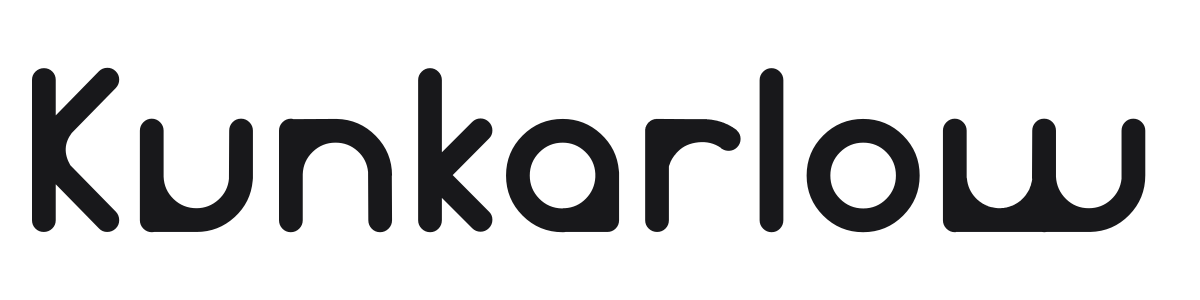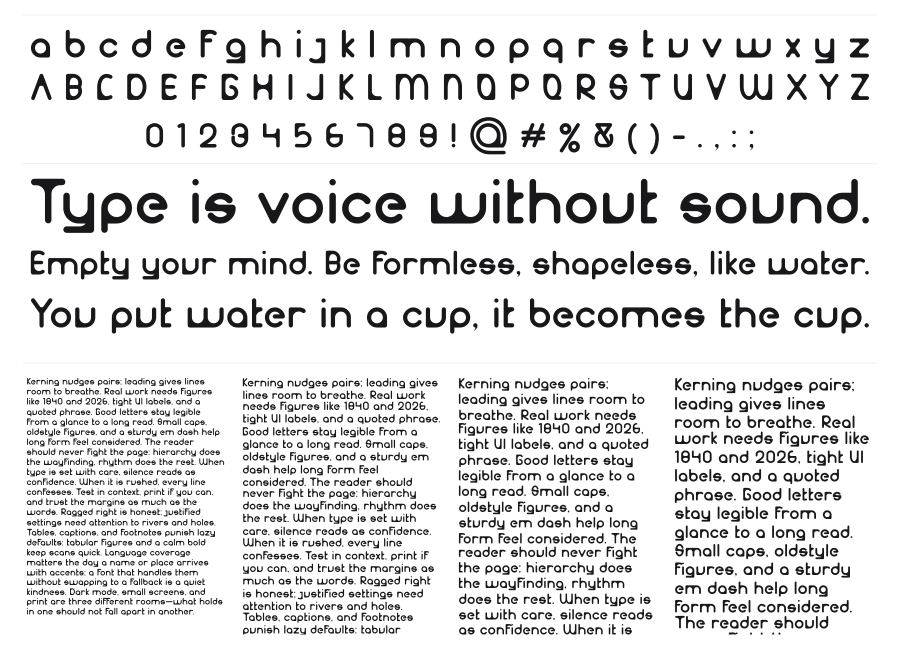
Kunkarlow
Kunkarlow is a geometric rounded sans with soft terminals and a wide, relaxed stance. Its consistent monoweight strokes and large x-height give it a clean, approachable feel with just enough quirk in certain characters to keep things interesting. A solid choice for branding, packaging, and digital product work that needs warmth without sacrificing clarity.